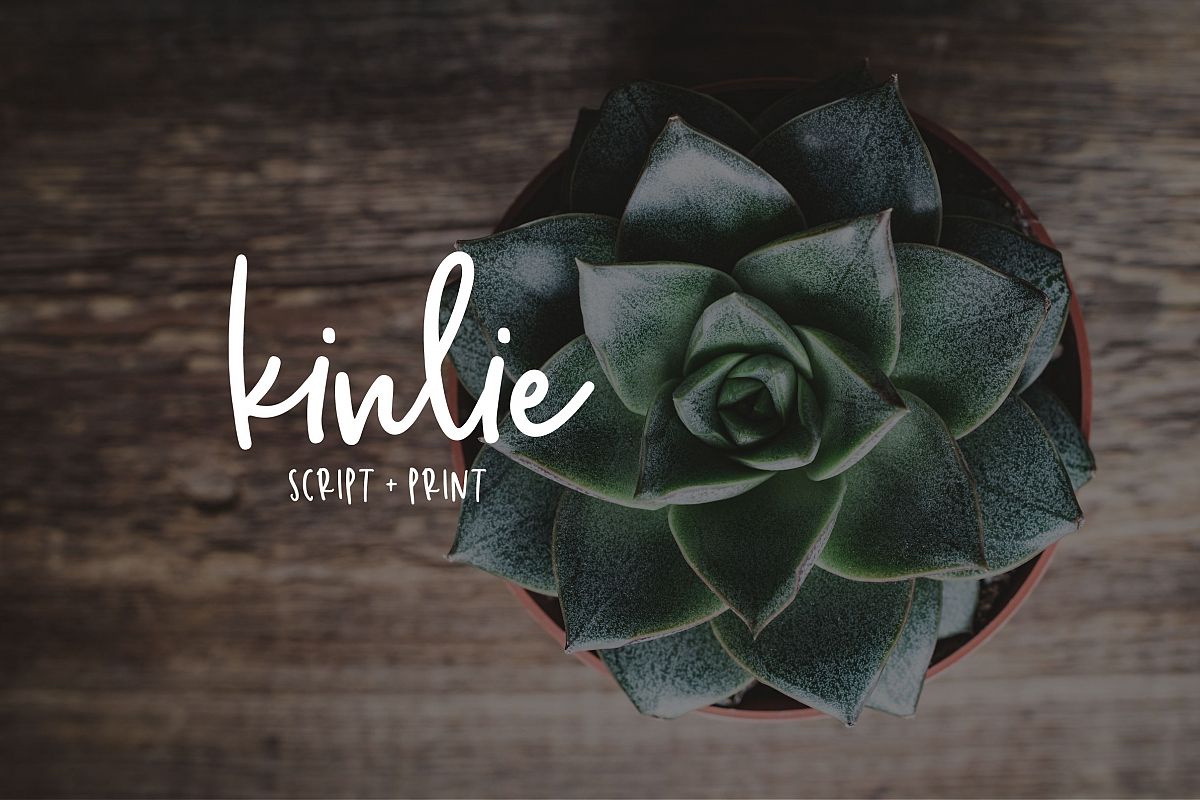
Kinlie
Kinlie is a simple script with a relaxed vibe. The uppercase letters create their own style as well when used together. Includes 4 hand drawn frames to accent your designs!
Kinlie